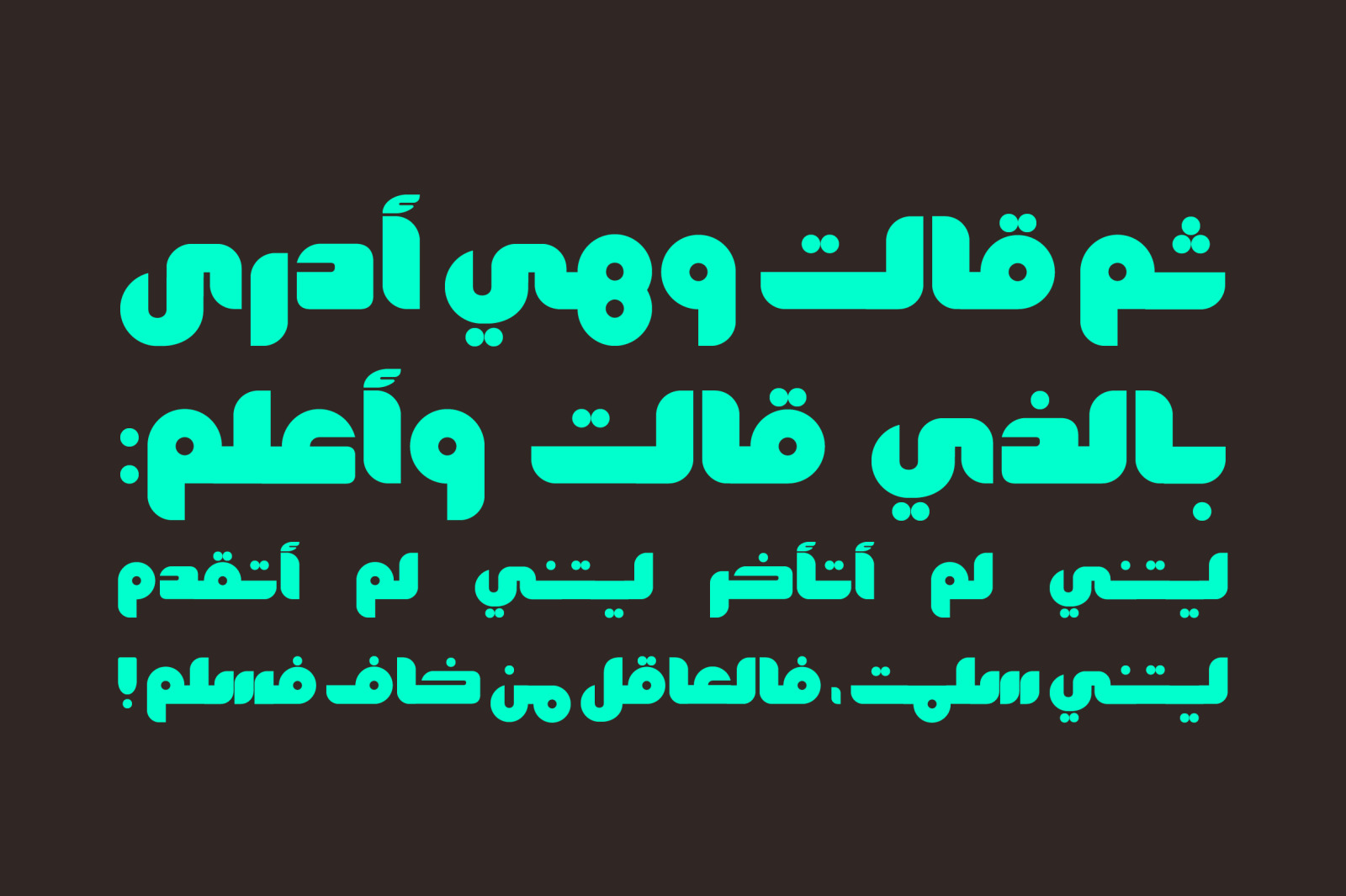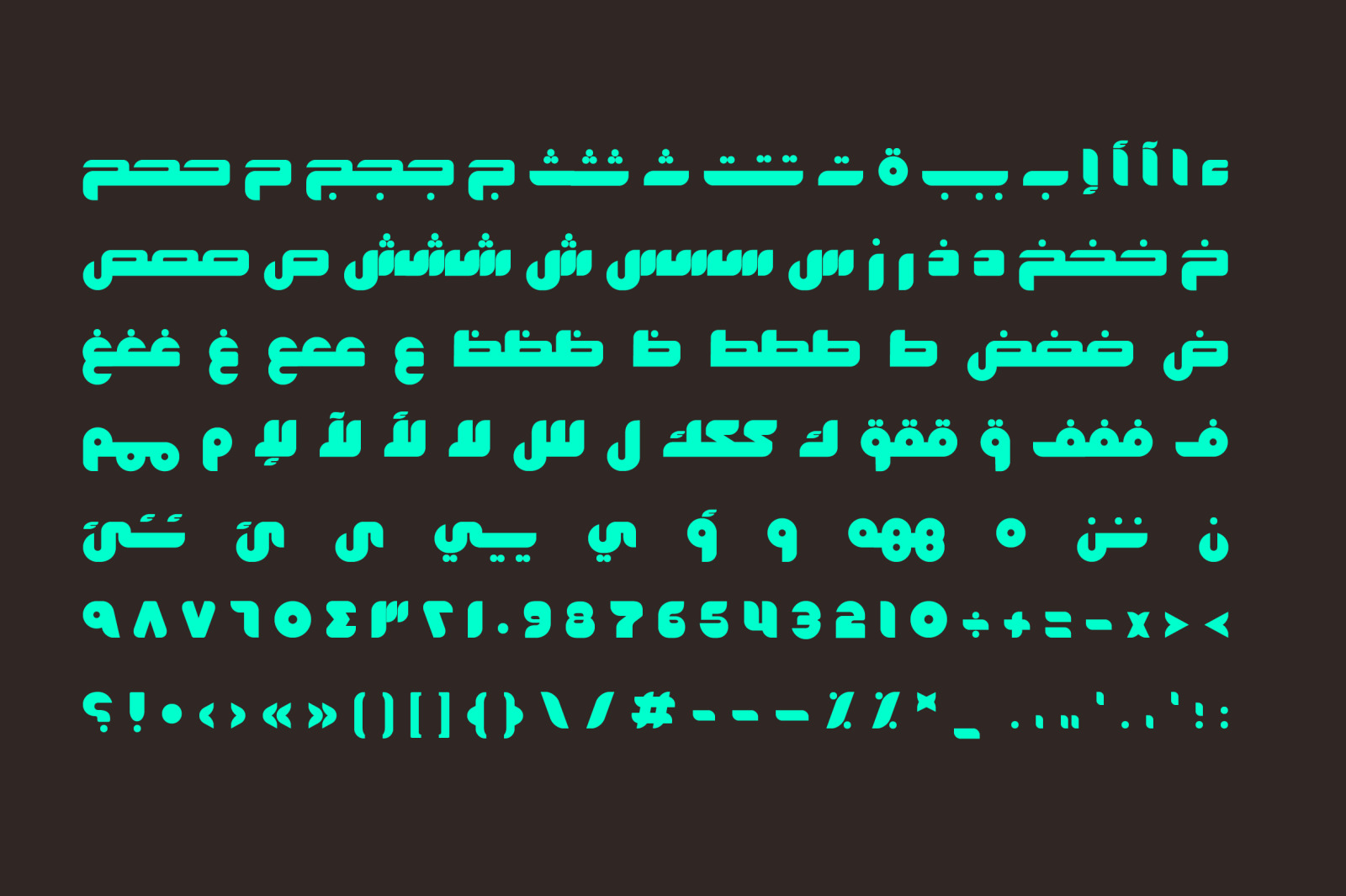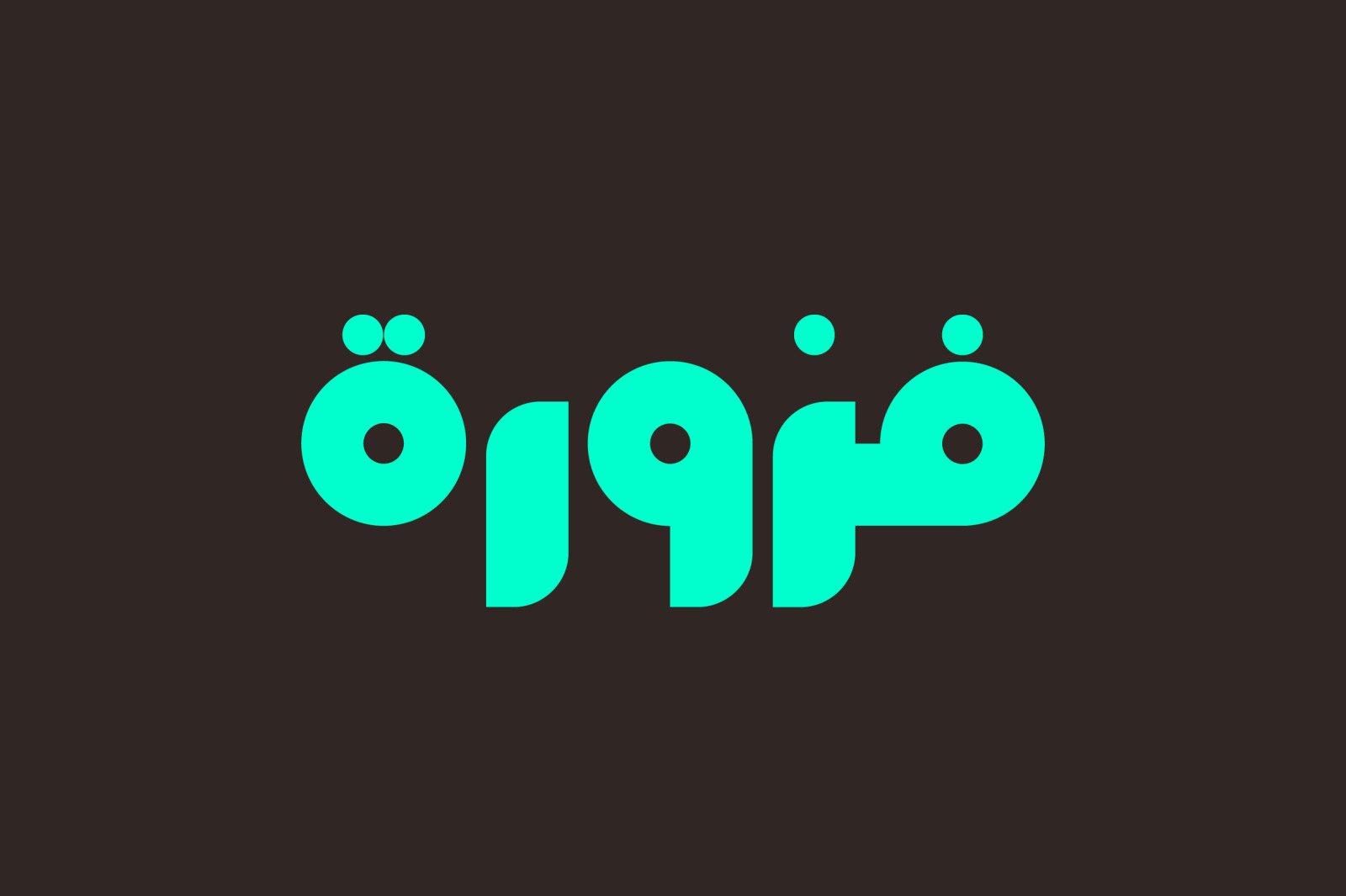
Fekrah - Arabic Font
Fekrah is the Arabic word for Idea. Fekrah is a contemporary Arabic font that suits visual identities and modern design projects. It consists of two styles, opaque and outlined. The font is suitable for advertising, creative titles and publication design.